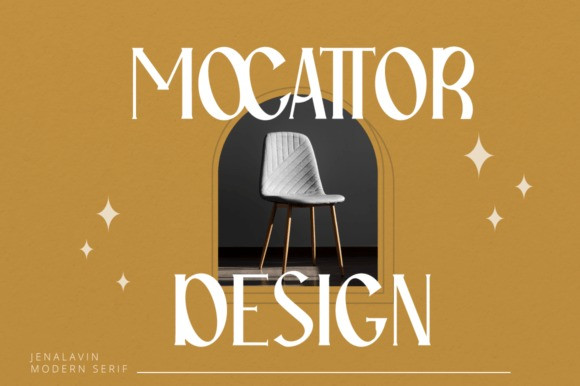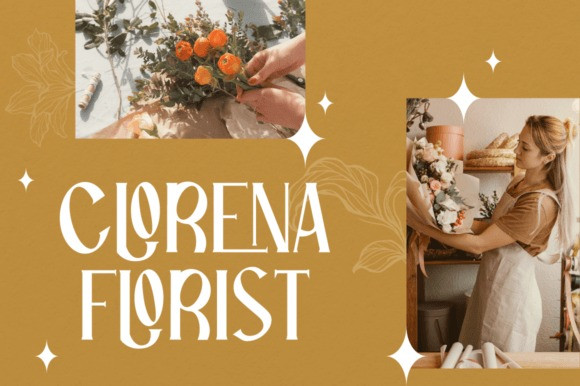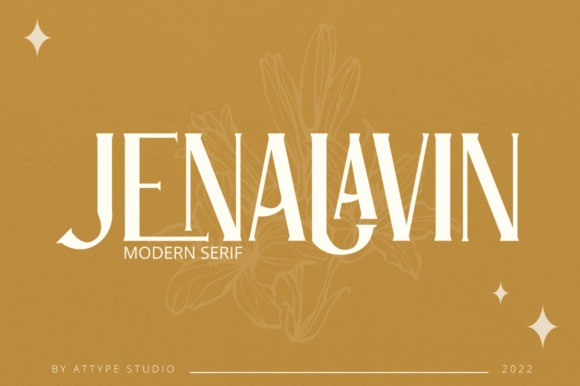
Jenalavin Font
Jenalavin Font is a modern serif font with smooth curves and sharp edges. Stylish and elegant, this font is perfect for creating fashionable, chic designs.